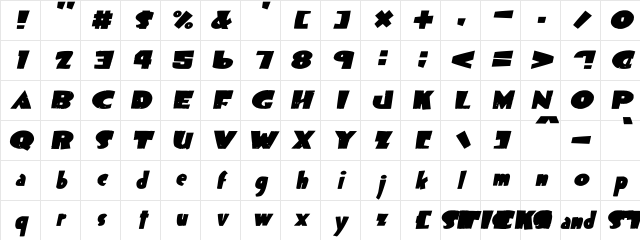
Complete Sticks and Stones Italic glyph index. Displaying only characters natively supported by Sticks and Stones Italic font.
Sticks and Stones is a composed and adaptable typeface that performs quietly and consistently across a wide range of design contexts. The slanted form adds forward momentum and visual energy.
Pro Tip: Use Sticks and Stones for emphasis, pull quotes, and subheadings where its slanted energy can add rhythm to the layout.